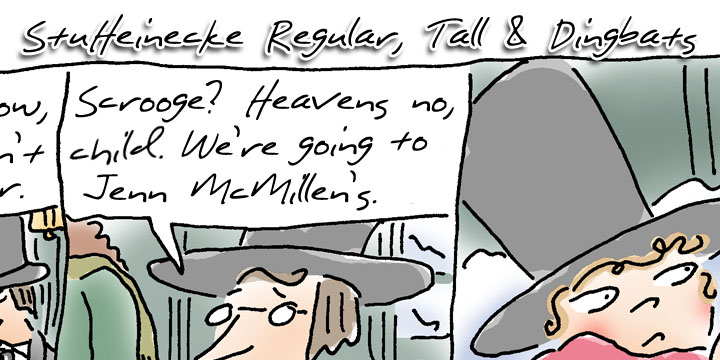
StuHeinecke
The StuHeinecke family of fonts comes straight out of famed cartoonist and Hall of Fame-nominated direct marketer Stu Heinecke’s record-breaking campaigns, that combine cartoons and personalization.
The fonts were developed to create a seamless transition from Stu’s natural chicken-scratch handwriting, which appears throughout his cartoons, to the computer-generated personalization that produced so much fascination and response. More…